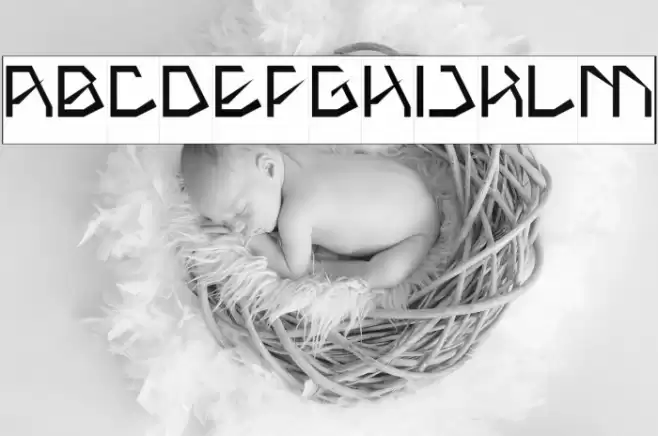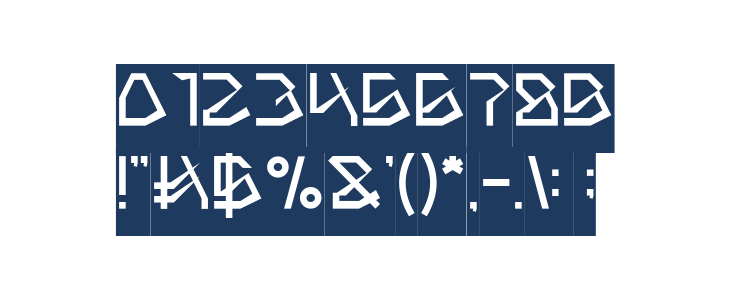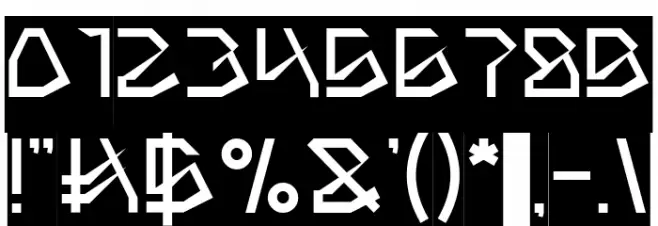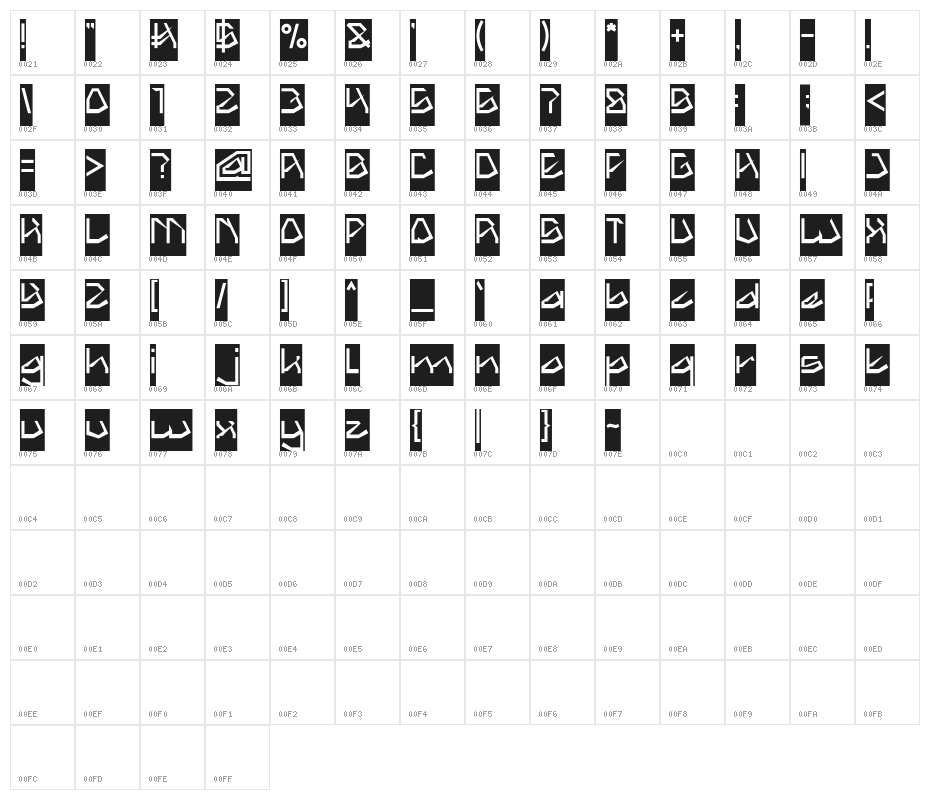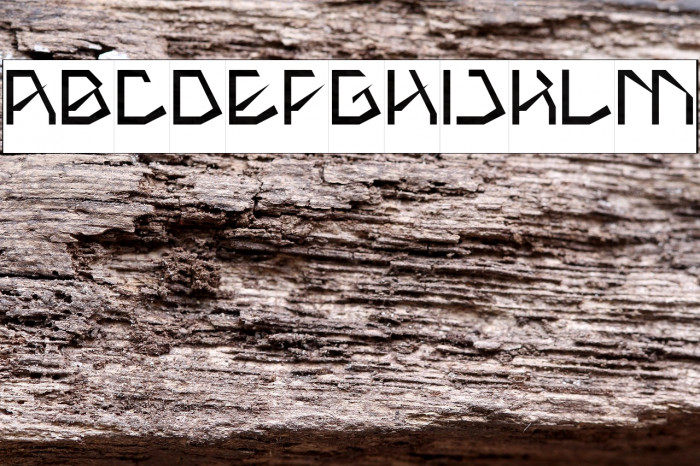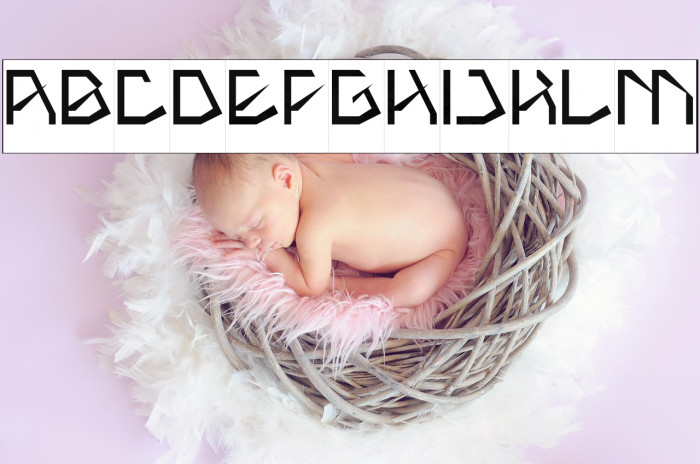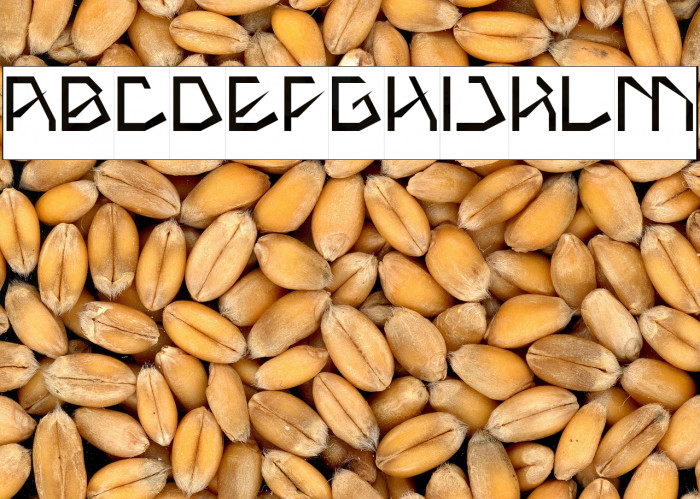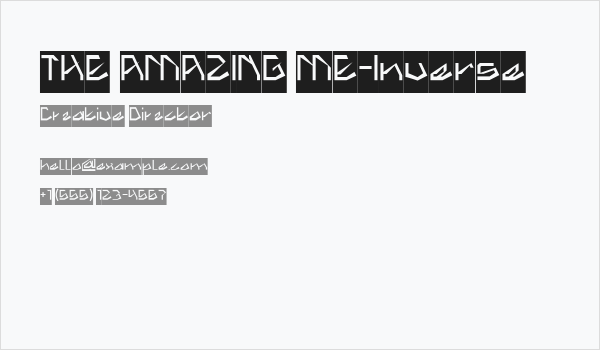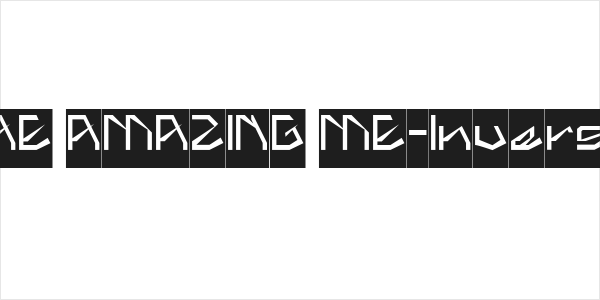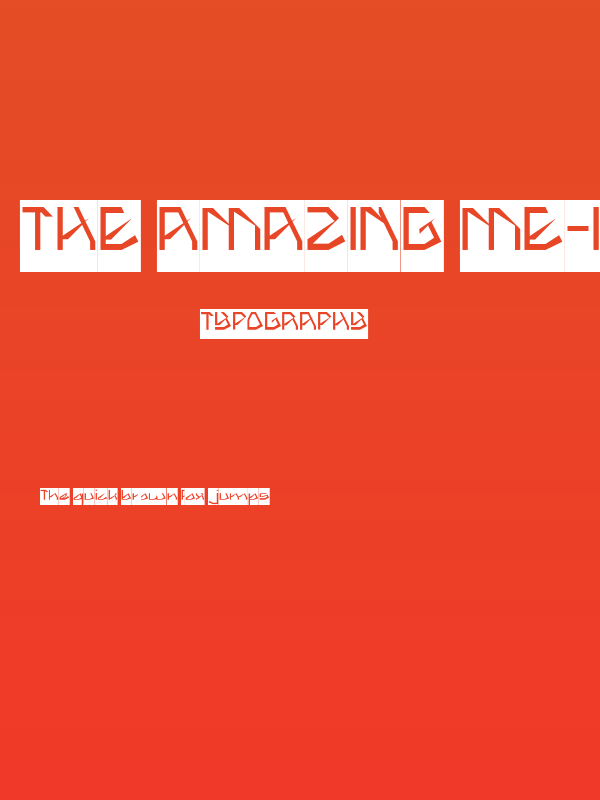
THE AMAZING ME-Inverse Font
THE AMAZING ME-Inverse Description
This font features a bold, geometric design with sharp angles and a futuristic aesthetic. The characters are constructed with straight lines and angular cuts, giving them a dynamic and edgy appearance. The uppercase and lowercase letters maintain a consistent style, with a unique approach to each character that emphasizes individuality while maintaining overall cohesion. Numbers and special characters follow the same design principles, ensuring uniformity across all glyphs. The font's distinct style makes it suitable for modern and tech-oriented projects, where a strong visual impact is desired.
A bold, geometric font with sharp angles and a futuristic style from Uncategorized fonts.
- Font: THE AMAZING ME-Inverse
- Proposed Projects: Ideal for tech branding, video game titles, sci-fi movie posters, and modern digital interfaces.
- Overall Style: Futuristic, Modern